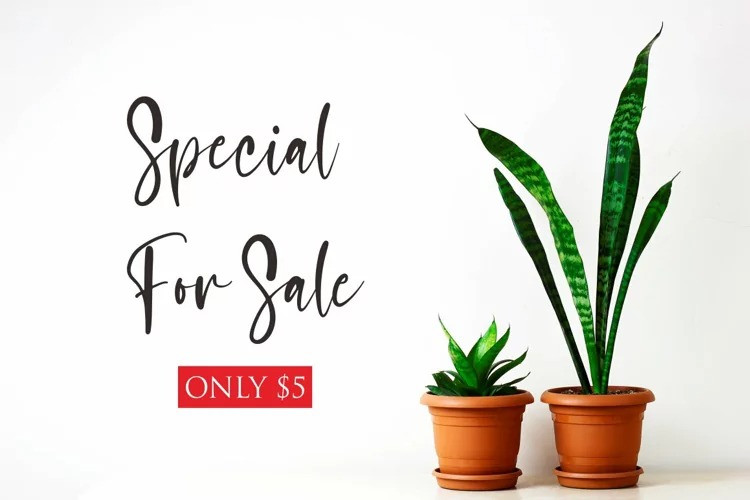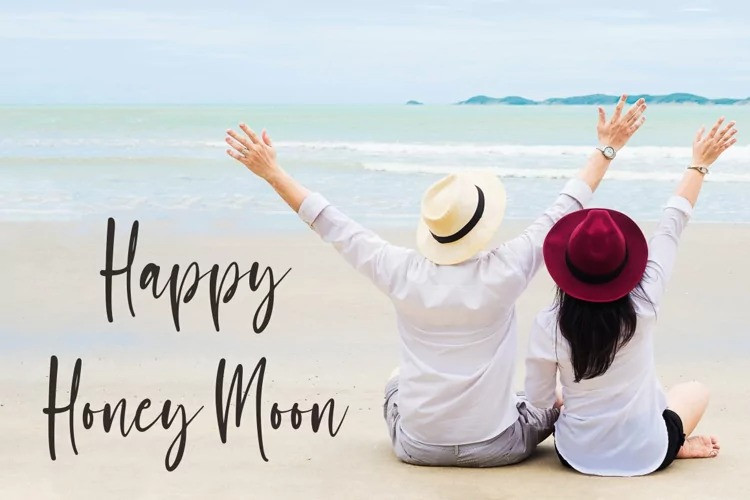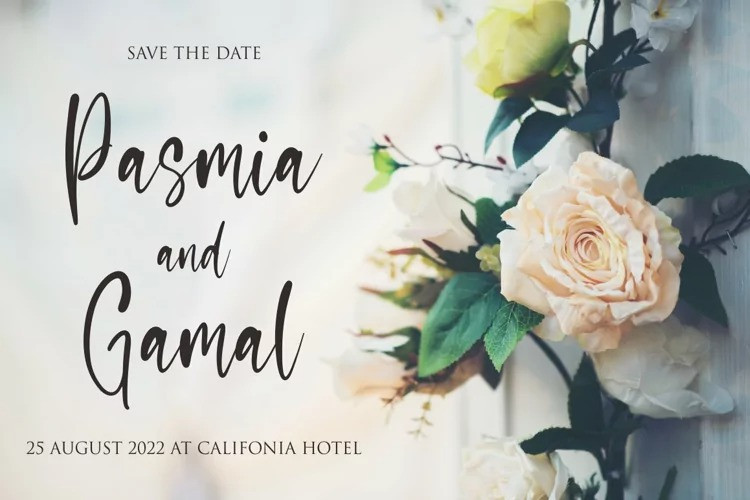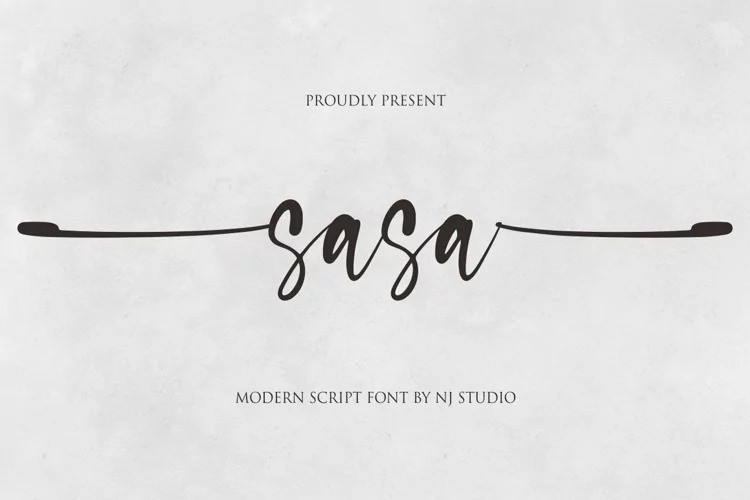
Sasa Font
Sasa Script Font
It’s a beautiful modern calligraphy script typeface created by NJ Studio with beginning and ending swash. It features ligatures characters that will take your projects to the next level!
This font is PUA code which means you can easily access all the glyphs and swash that are full of authentic! It also features many special features including glyphs. font designs that are made for various vector designs, printing such as digital wedding blogs, online shops, social media, while printing can be used in the field of product clothing, accessories, bags, pins, logos, business cards, watermarks and many others …